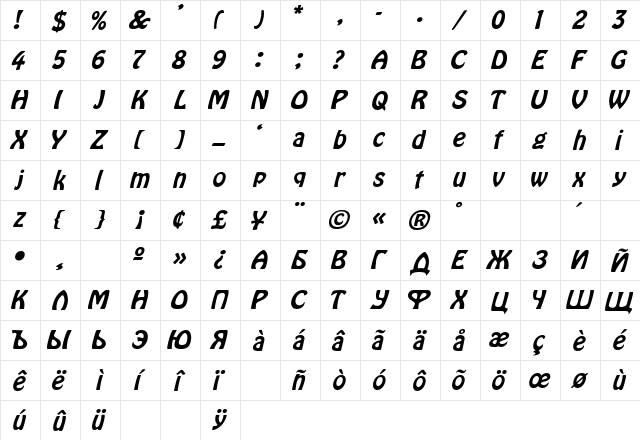
HoboR Italic Font Preview
HoboR Italic
Design Context for HoboR Typeface
HoboR takes a measured approach to typography — its balanced proportions and neutral character make it a reliable workhorse for both digital and print work. Its italic angle brings a sense of urgency and motion to the letterforms.